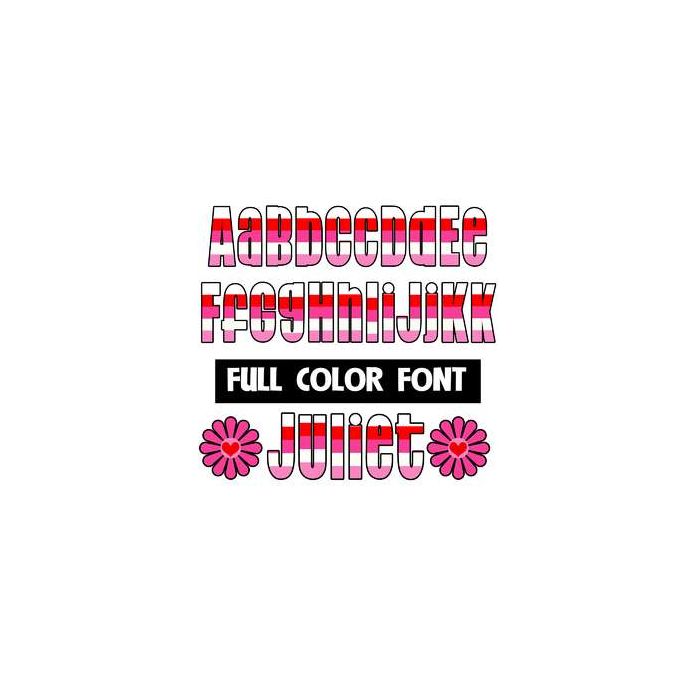
This full-color font features pin and red stripes. There is two matching flowers that you can access by typing the parenthesis. This font works best for titles, displays, posters and more. Please note color fonts will show as black in non compatible programs. This font type is compatible with Silhouette Studio.